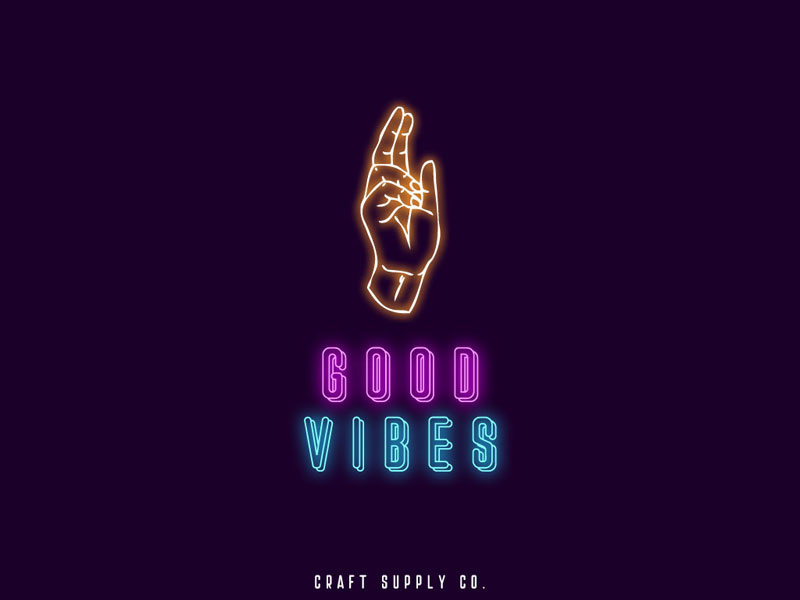
Stockport Rounded Font
Introducing Our Latest Font Stockport Rounded
Stockport Rounded is a bold sans serif with solid and outlined font files. Stockport Rounded is suitable for Logo, greeting cards, quotes, posters, branding, name card, stationary, design title, blog header, art quote, typography art, modern envelope lettering or book design, happening style like handdrawn design or watercolor design theme, craft design, any DIY project, book title, wedding font, pop vintage design, or any purpose to make our art/design project look pretty and trendy.